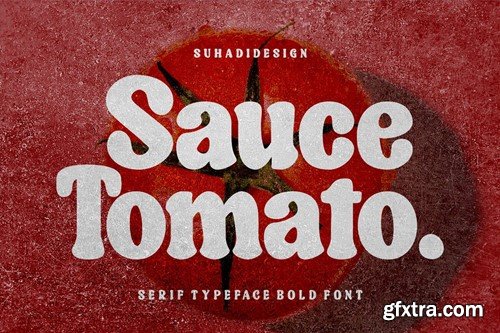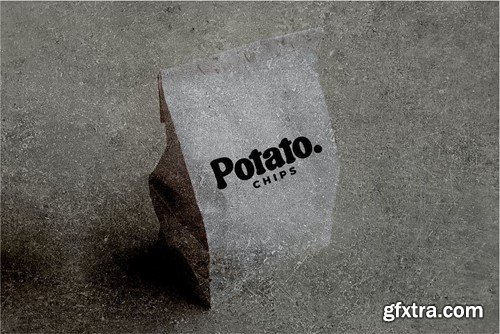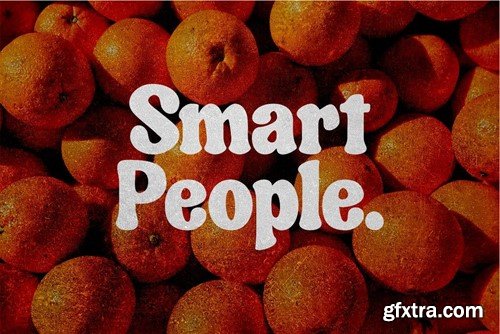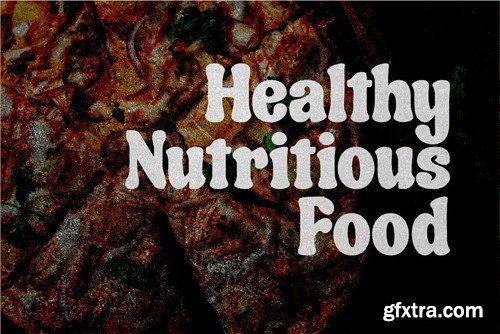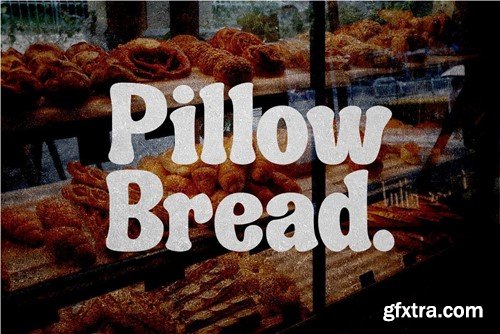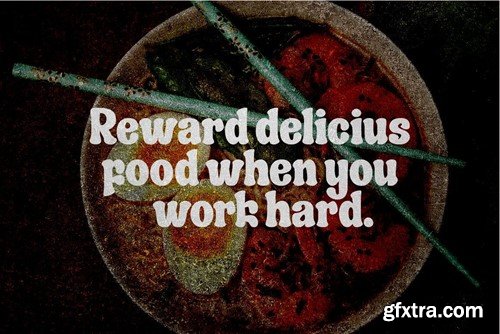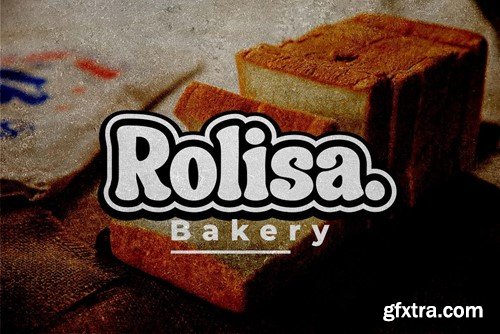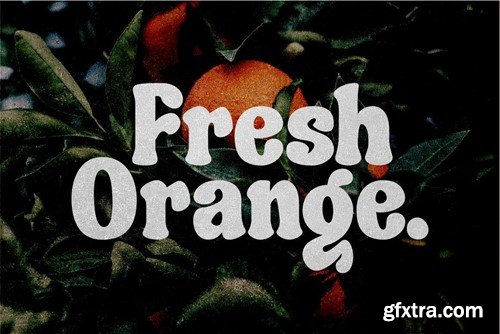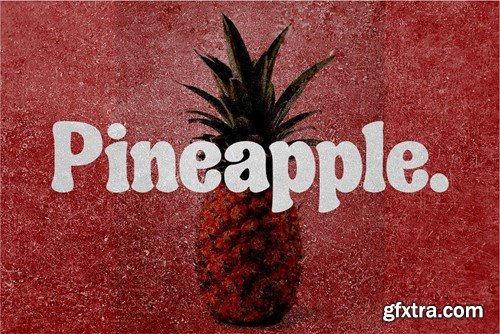
Sauce Tomato Retro Serif Bold Font SKN9DWY
Sauce Tomato Retro Serif Bold Font Hi Ladies and Gentlemen! In accordance with market demand for fonts that tend to be more modern, I decided to create a serif font that suits your views. The Sauce Tomato font is a bold retro serif typeface font that is good for design needs, creating a font that is most needed by many people in the hope of becoming a market favorite. We keep this font looking elegant, classy, easy to read, stylish, attractive and easy to use. Sauce Tomato Font is the right choice for brand names, logos, food brands, drink brands, branding, brands, logo names, magazines, retro designs, books, banners, brand names, branding, quotes, album covers and other projects. The Sauce Tomato font is here to improve the quality of your designs. The Sauce Tomato font style will make you love designing and taking advantage of the cool design results for this font. Keep following us for further updates on font creation :) Font Features: • Standard upper and lower case letters • Bold retro style • Multilingual Support • Numbers and punctuation What's included: • Sauce Tomato (Otf/Ttf)